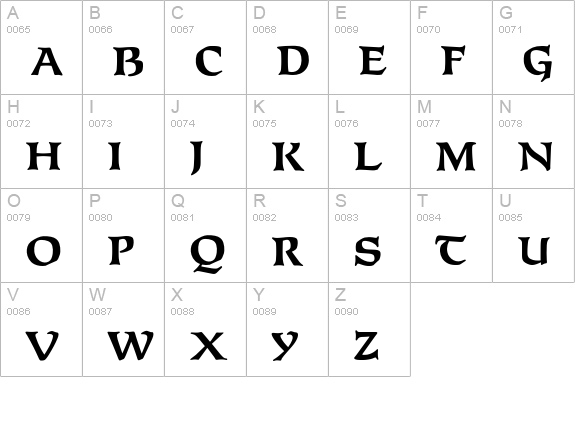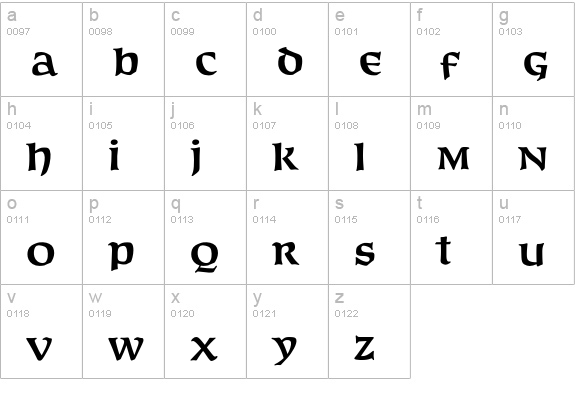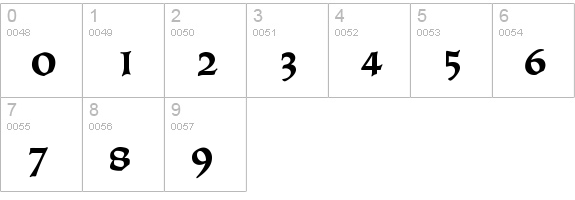
OPTIFurst-Bold is a strong, high-contrast variant in the OPTIFurst typeface family \xE2\x80\x94 well suited to headlines, attention-grabbing titles, and strong calls-to-action.
OPTIFurst-Bold is a striking and versatile font that exudes confidence and modernity. With its bold and impactful letterforms, this typeface is perfect for making a statement in headlines, signage, or branding materials. The strong vertical lines and sharp edges of OPTIFurst-Bold give it a contemporary and edgy feel, making it a great choice for projects that require a bold and assertive look. What's even better is that OPTIFurst-Bold is available for free download at FontsMarket.com. Whether you're a designer looking to add a bold touch to your projects or a business in need of a strong visual identity, OPTIFurst-Bold is a fantastic choice that won't cost you a penny. Download it today and take your designs to the next level with this eye-catching font.